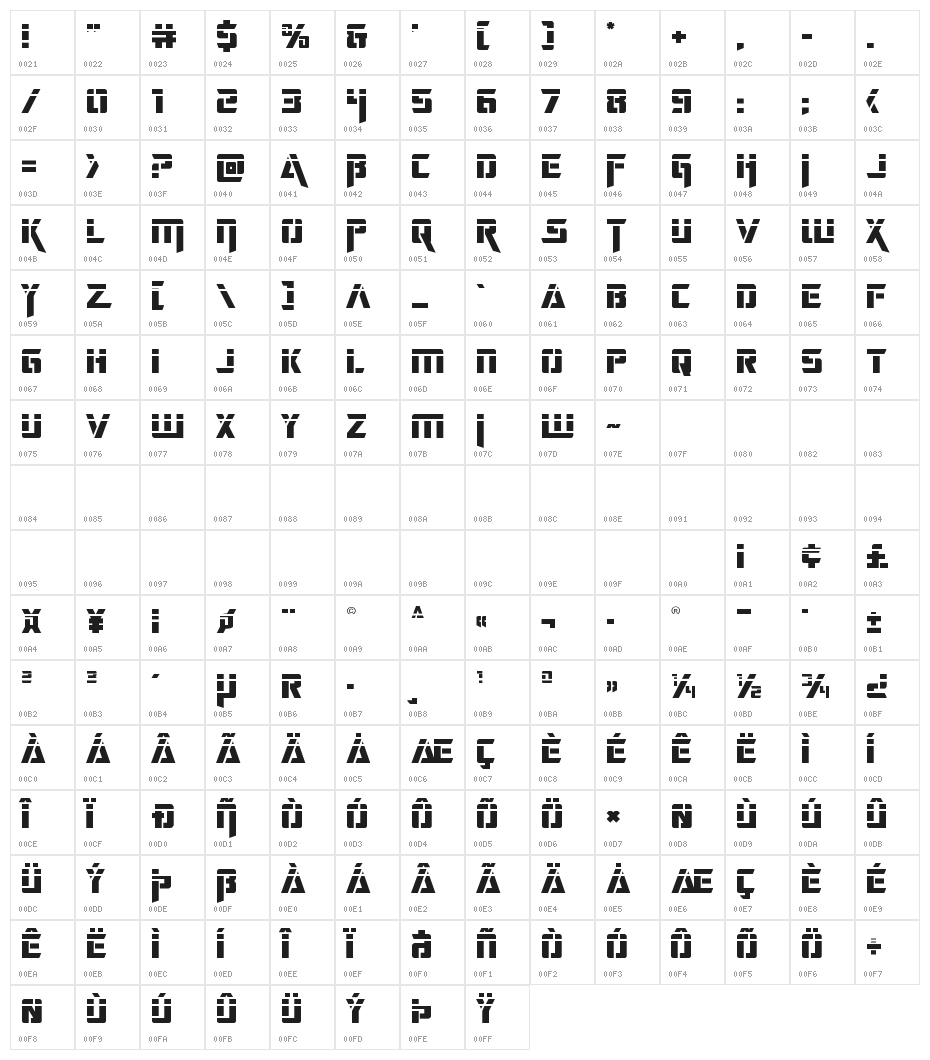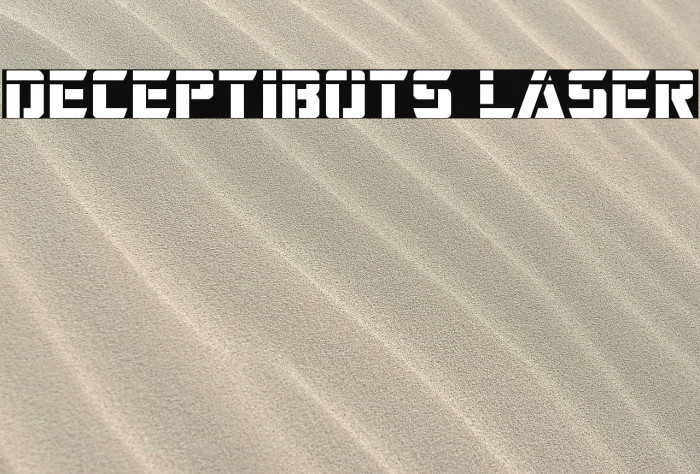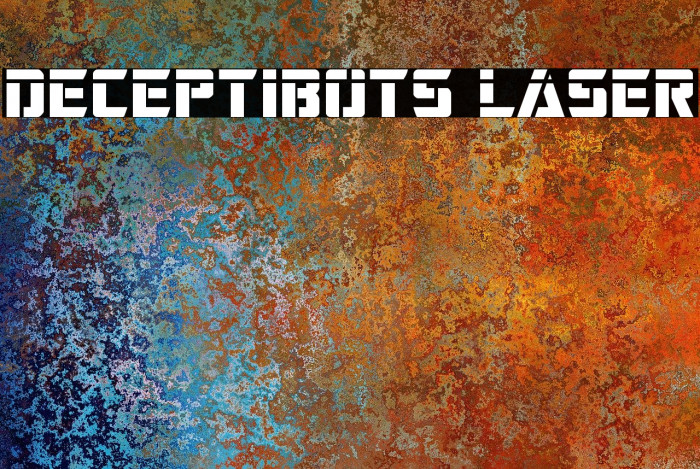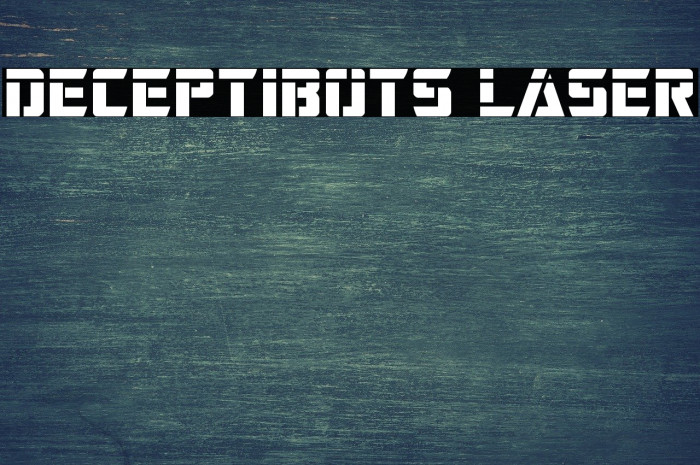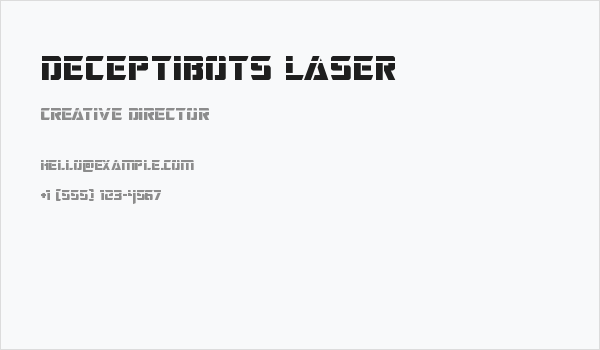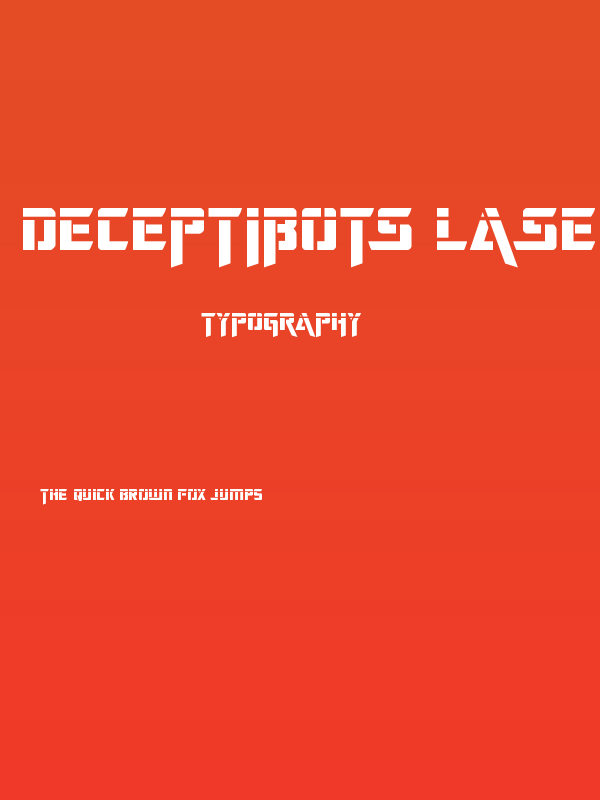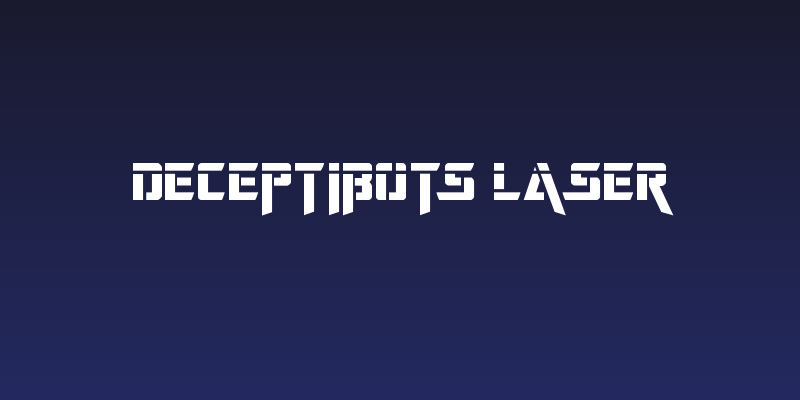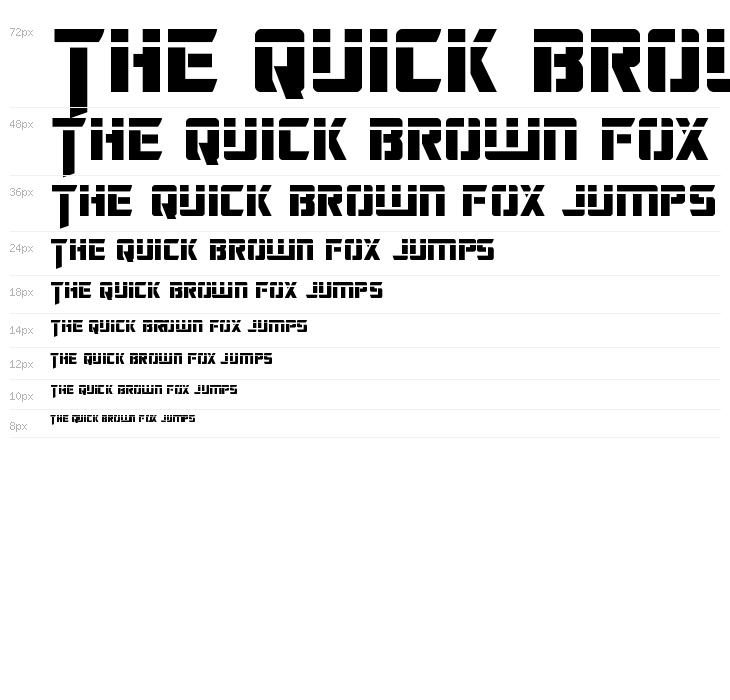
Deceptibots Laser Font
Deceptibots Laser Description
This font features a bold, futuristic design with sharp, angular lines and geometric shapes. The characters are constructed with a strong emphasis on symmetry and precision, giving it a robotic and mechanical appearance. The uppercase and lowercase letters maintain a consistent style, with the uppercase being more prominent and the lowercase slightly more compact. Numbers and special characters follow the same design principles, ensuring uniformity across all glyphs. The font's unique style makes it ideal for projects that require a modern, tech-inspired aesthetic.